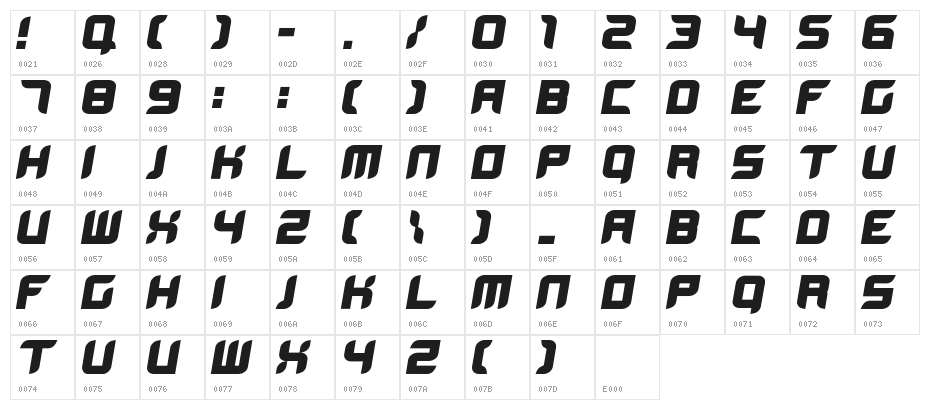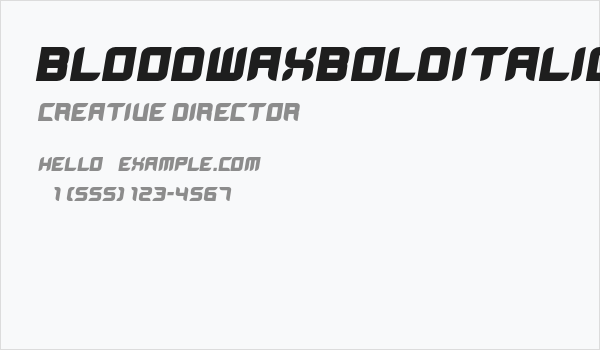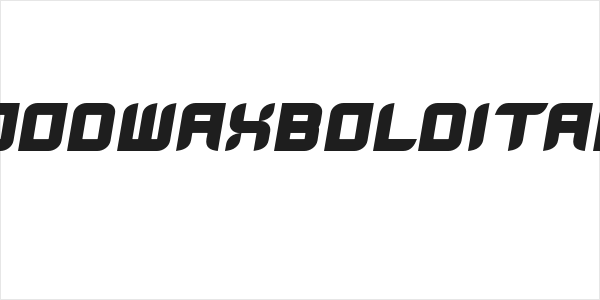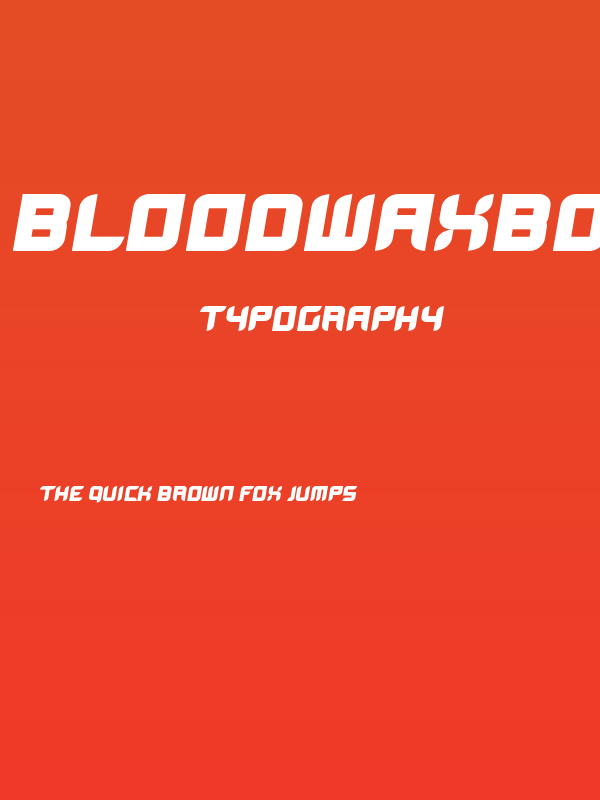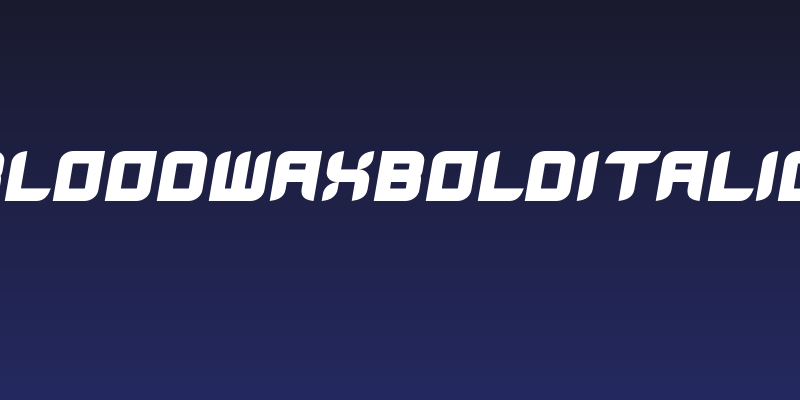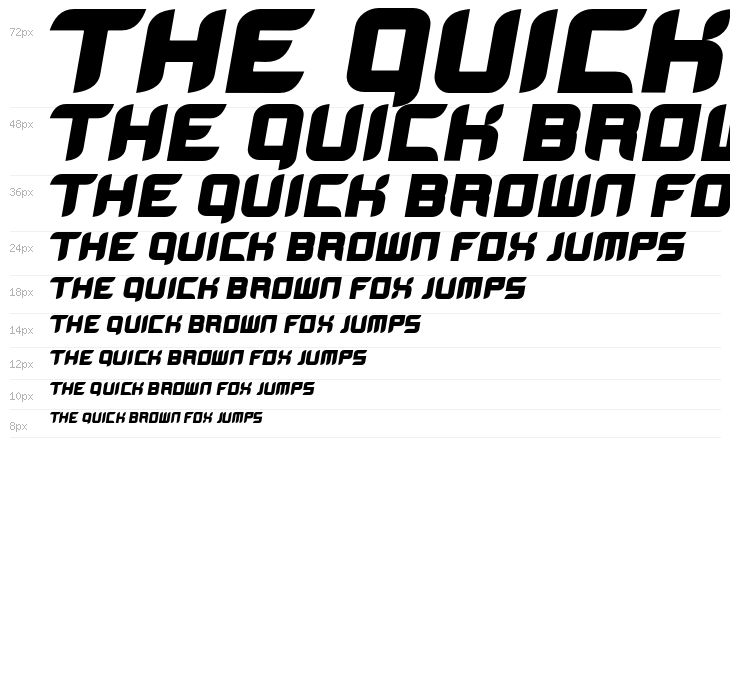
BloodWaxBoldItalic Font
BloodWaxBoldItalic Description
This font exhibits a bold and dynamic style with a distinct italic slant, giving it a sense of motion and energy. The characters are thick and robust, featuring sharp angles and a futuristic aesthetic. The uppercase letters are uniform in height, while the lowercase letters maintain a consistent style, enhancing readability. The numerals are equally bold, ensuring they stand out prominently. Special characters are designed to match the overall boldness and angularity, making this font suitable for impactful and attention-grabbing designs.
| Proposed Projects | Ideal for sports branding, video game titles, sci-fi posters, and dynamic logo designs. |